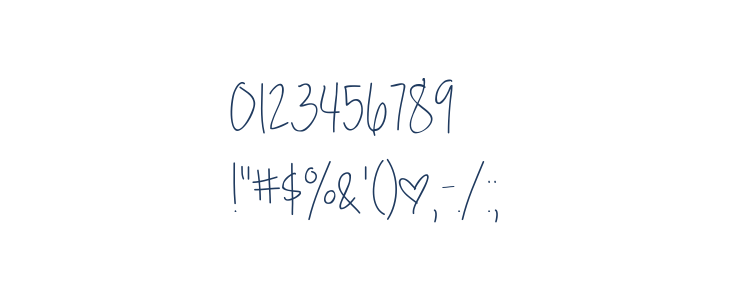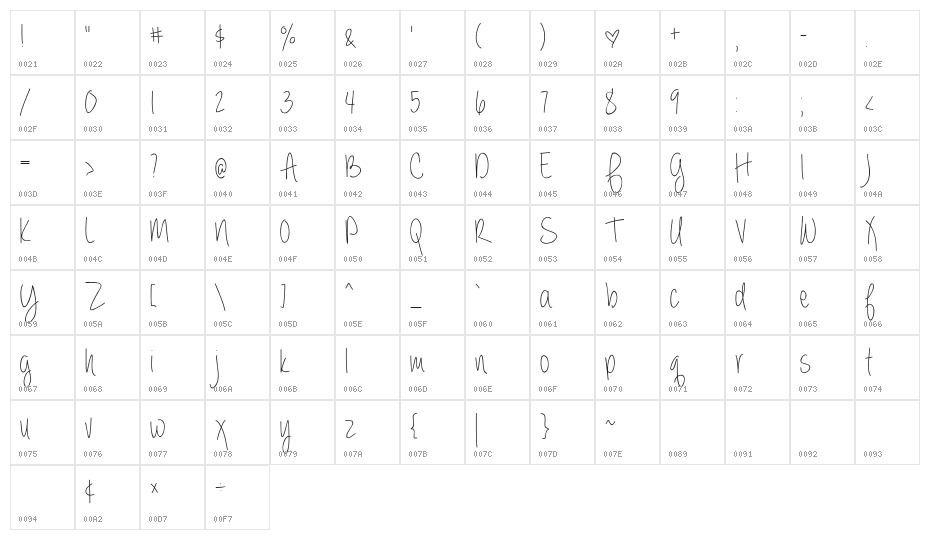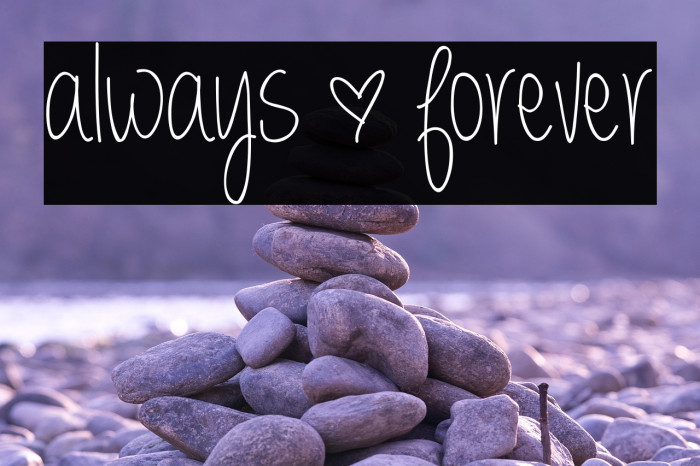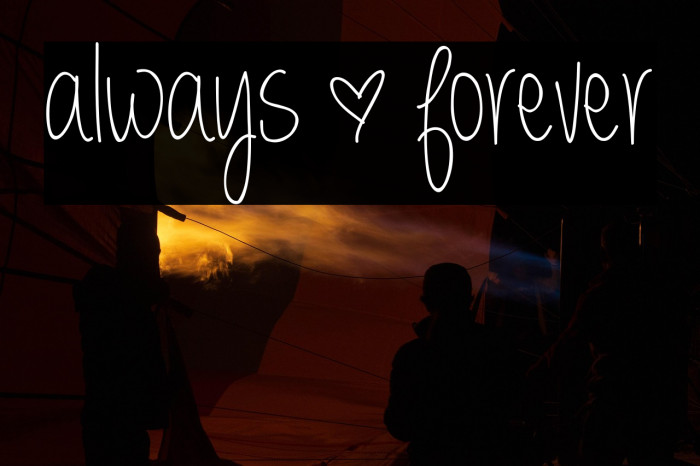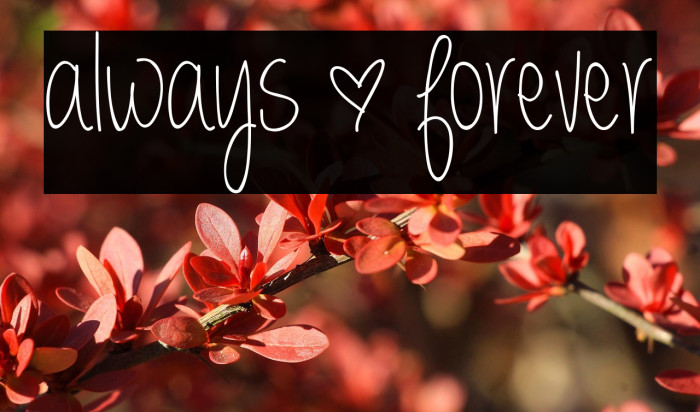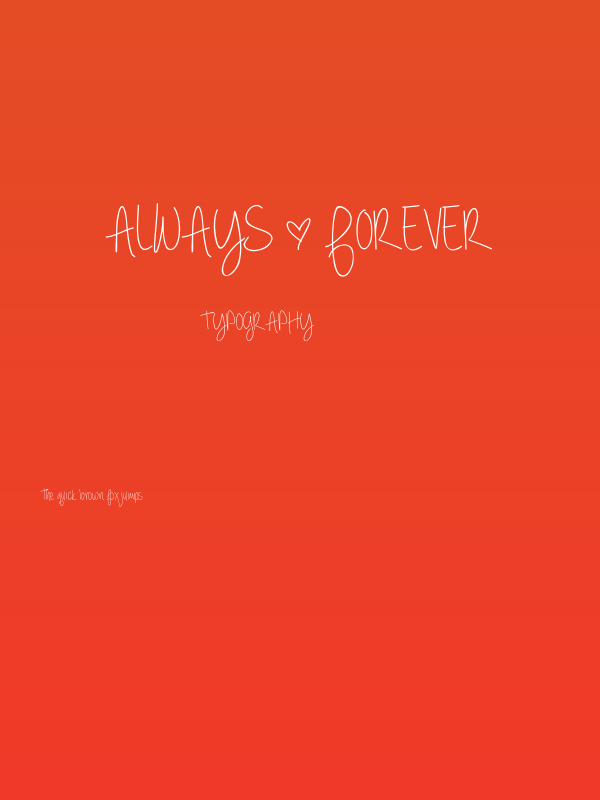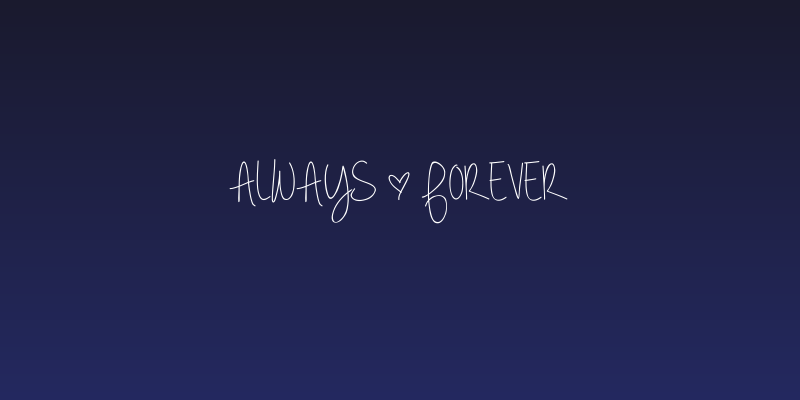
always * forever Font
always * forever Description
A playful, handwritten font with a casual and informal style, featuring tall, narrow letters with a slight slant.
| Use Case | Headlines, Informal text |
| Proposed Projects | Greeting cards, personal notes, informal invitations. |